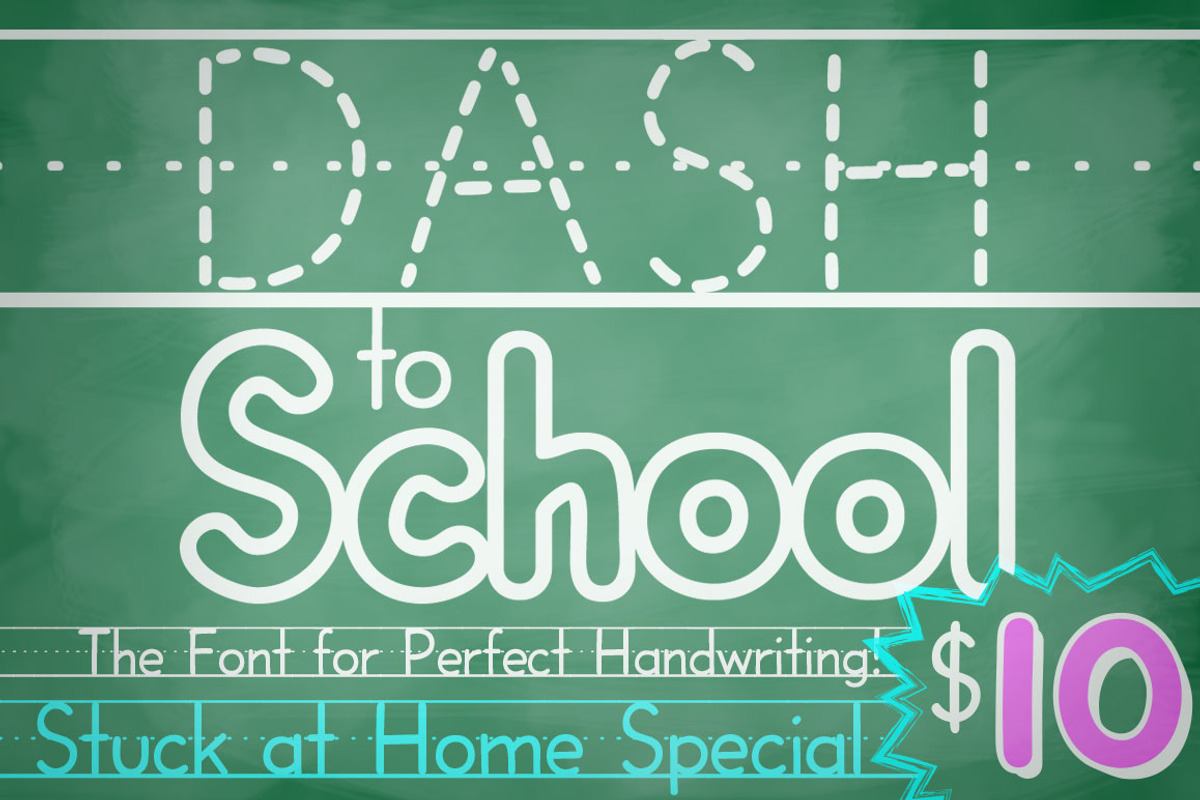
Dash to School - a Handwriting Font Free Download is a friendly and approachable typeface that captures the look and feel of a child's neat, playful handwriting. Perfect for educational materials, classroom posters, kids’ books, and school-themed projects, this font brings a sense of innocence and creativity to every design.
Dash to School - a Handwriting Font Free Download is not only charming but also highly readable, making it a great choice for teachers, parents, and designers working in the educational space. Whether you’re crafting worksheets, bulletin boards, or digital learning content, this font adds a warm, personal touch. Download it today and see how it elevates your back-to-school designs!